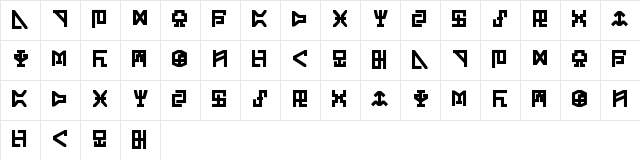
Digicode Bold Bold Font Preview
Design Context for Digicode Bold Typeface
Digicode Bold brings the precise, column-aligned rhythm of monospaced typography to designs that value technical clarity and systematic order. The heavy weight commands attention and anchors typographic hierarchies.
Well-suited to data-driven dashboards, coding tutorials, and any design that wants to reference the world of programming.